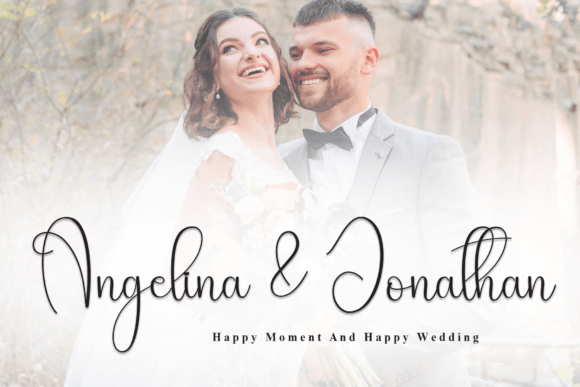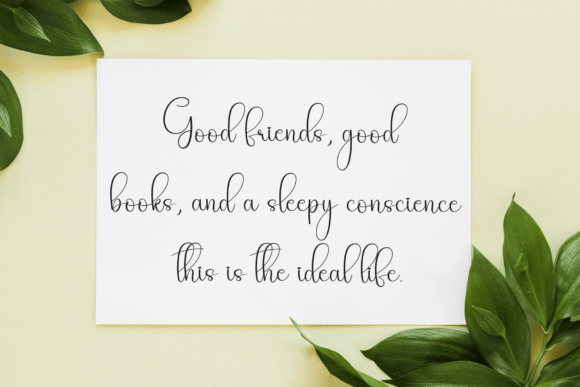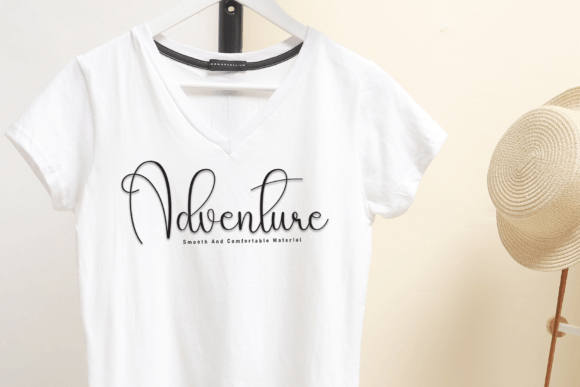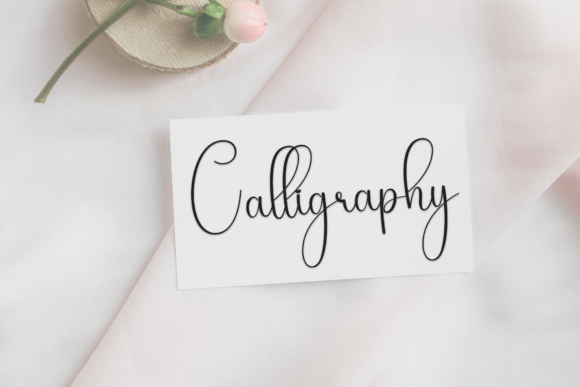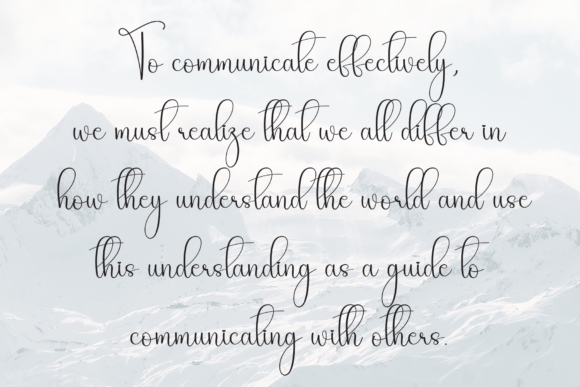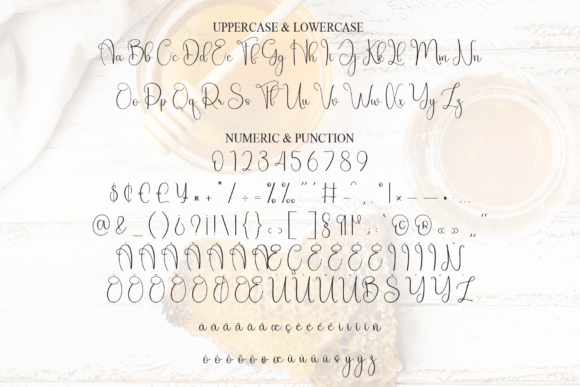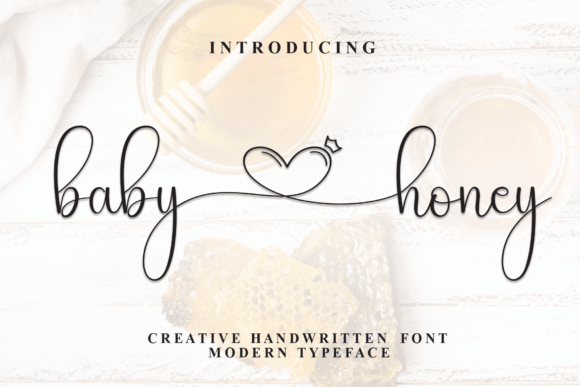
Baby Honey Font: The Perfect Casual Handwritten Font for Your Designs
Are you looking for a font that can add a relaxed and friendly vibe to your designs? Look no further than the Baby Honey font. This casual handwritten font is perfect for personal projects, social media, and invitations, bringing an effortless and charming touch to any design. In this article, we’ll explore the features and benefits of the Baby Honey font and why it’s a must-have for designers and crafters.
What is Baby Honey Font?
Baby Honey is a casual handwritten font that captures a relaxed and friendly vibe with its natural, flowing strokes. The font’s easygoing style adds warmth and authenticity to any design, making it perfect for projects that require a personal touch. The font’s unique and charming appearance is sure to make your designs stand out from the crowd.
Features of Baby Honey Font
- Casual and Handwritten: Baby Honey font has a casual and handwritten appearance that gives it a personal and friendly feel.
- Natural and Flowing Strokes: The font’s natural and flowing strokes add a touch of elegance and sophistication to any design.
- Effortless and Charming: The font’s effortless and charming style makes it perfect for personal projects, social media, and invitations.
- Warmth and Authenticity: The font’s easygoing style adds warmth and authenticity to any design, making it perfect for projects that require a personal touch.
Benefits of Using Baby Honey Font
There are many benefits to using the Baby Honey font in your designs. Here are a few:
- Perfect for Personal Projects: The Baby Honey font is perfect for personal projects, such as creating invitations, greeting cards, and social media graphics.
- Ideal for Social Media: The font’s casual and friendly appearance makes it perfect for social media graphics, such as Instagram posts and Facebook updates.
- Adds a Personal Touch: The font’s unique and charming appearance adds a personal touch to any design, making it perfect for projects that require a personal touch.
How to Use Baby Honey Font
Using the Baby Honey font is easy. Here are a few tips:
- Pair with Other Fonts: Pair the Baby Honey font with other fonts to create a unique and interesting design.
- Use for Headings and Titles: Use the font for headings and titles to add a touch of elegance and sophistication to your design.
In conclusion, the Baby Honey font is a must-have for designers and crafters. Its casual and handwritten appearance, natural and flowing strokes, and effortless and charming style make it perfect for personal projects, social media, and invitations. With its many benefits and easy-to-use features, the Baby Honey font is sure to add a personal touch to any design.
Here are a few tips and tricks to help you get the most out of the Baby Honey font:
- Experiment with Different Sizes: Experiment with different sizes to find the perfect size for your design.
- Use for Body Text: Use the font for body text to add a touch of elegance and sophistication to your design.
- Pair with Images: Pair the font with images to create a visually appealing design.
By following these tips and tricks, you can create beautiful and effective designs using the Baby Honey font.
In conclusion, the Baby Honey font is a great addition to any design project. Its casual and handwritten appearance, natural and flowing strokes, and effortless and charming style make it perfect for personal projects, social media, and invitations. With its many benefits and easy-to-use features, the Baby Honey font is sure to add a personal touch to any design.